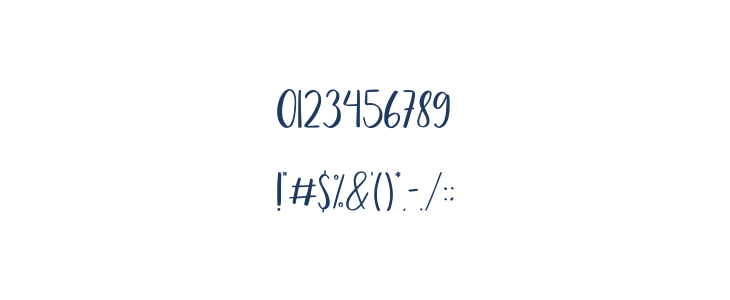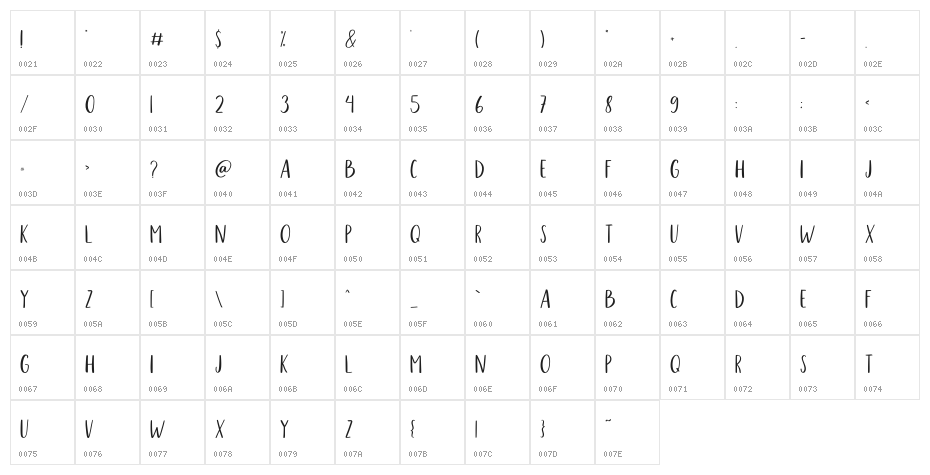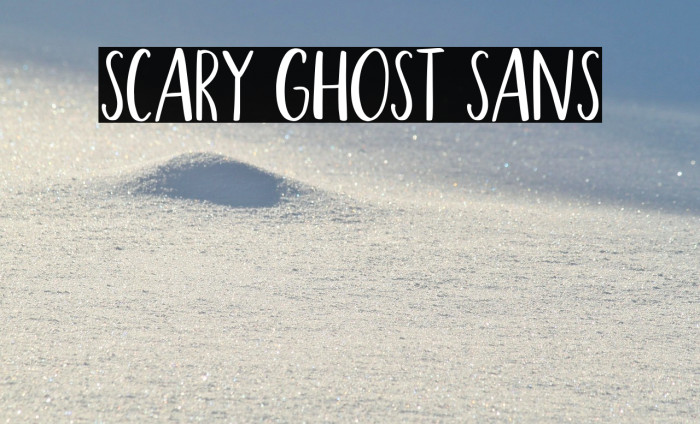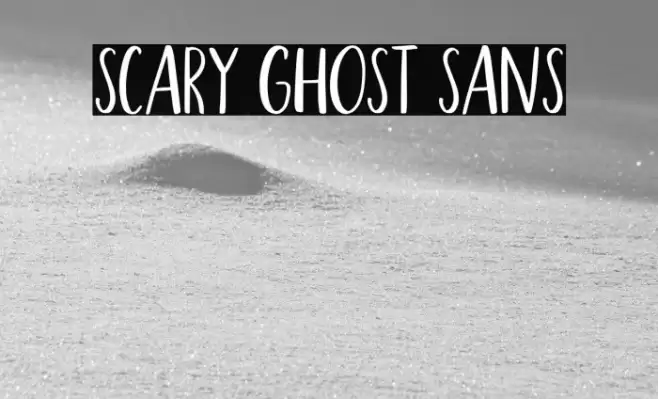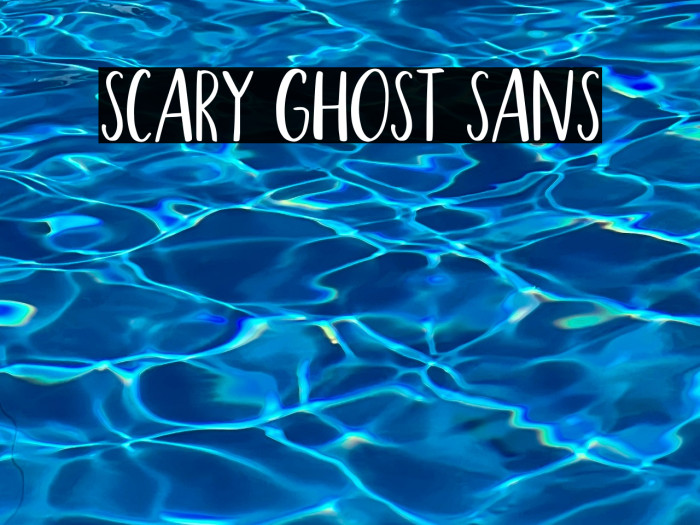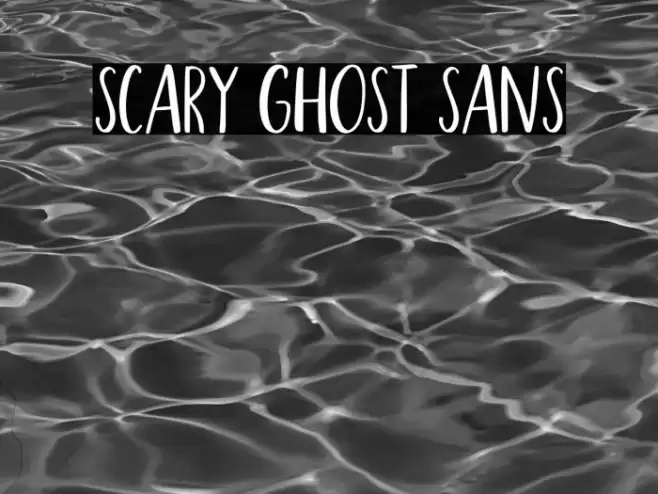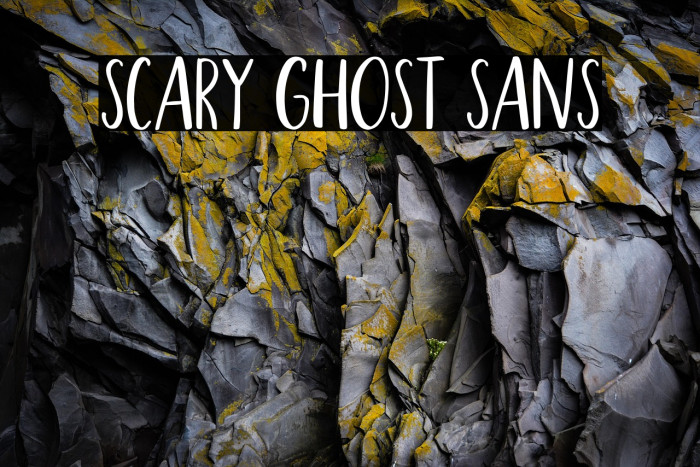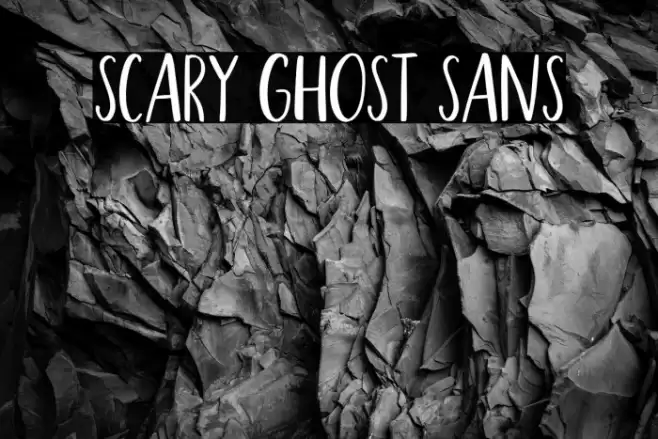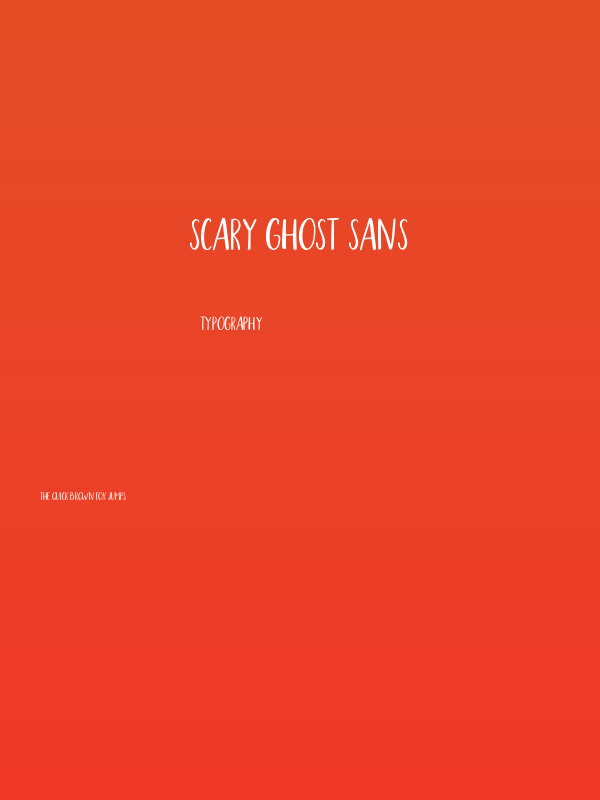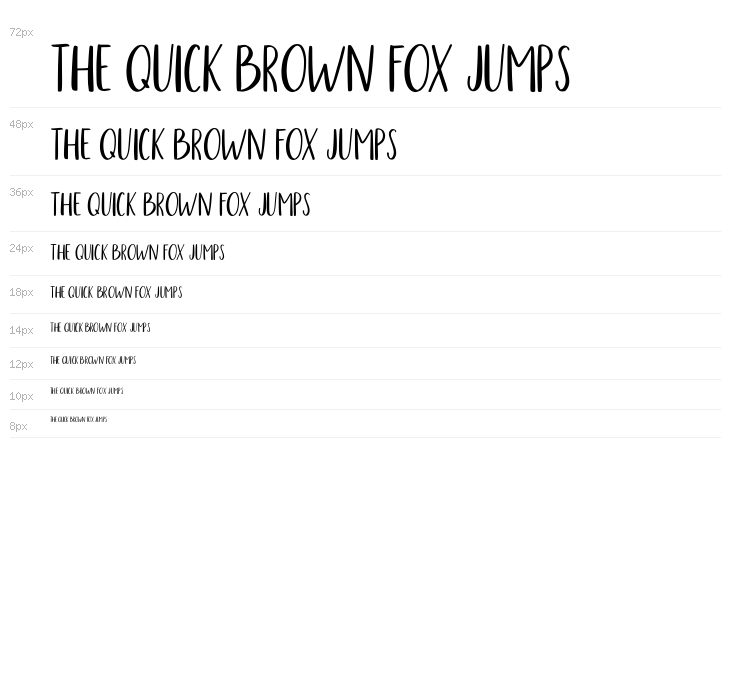
Scary Ghost Sans Font
Scary Ghost Sans Description
This font features a playful and slightly eerie design, characterized by its irregular, hand-drawn appearance. The letters have a whimsical quality with uneven strokes and a slightly tilted alignment, giving it a ghostly, quirky feel. The uppercase and lowercase letters maintain a consistent style, with rounded edges and a casual, informal look. The numbers and special characters follow the same playful theme, making it suitable for creative and fun projects. The overall style is unique and eye-catching, perfect for adding a touch of personality to any design.
Proposed ProjectsIdeal for Halloween-themed designs, children's books, playful branding, and creative posters.